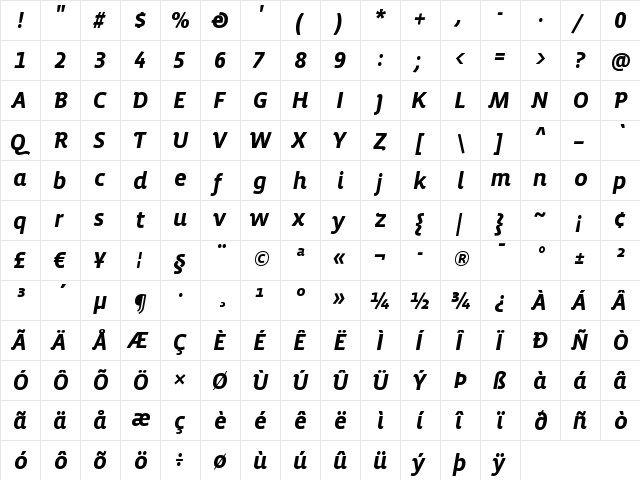
VistaSansAltBoldIta Regular
| Foundry | Xavier Dupre |
| Designer | Xavier Dupre |
Design Context for VistaSansAltBoldIta Typeface
VistaSansAltBoldIta offers clean, dependable letterforms without strong stylistic allegiance, making it a practical choice for designers who need flexibility. Its bold stroke weight gives it real presence on the page.